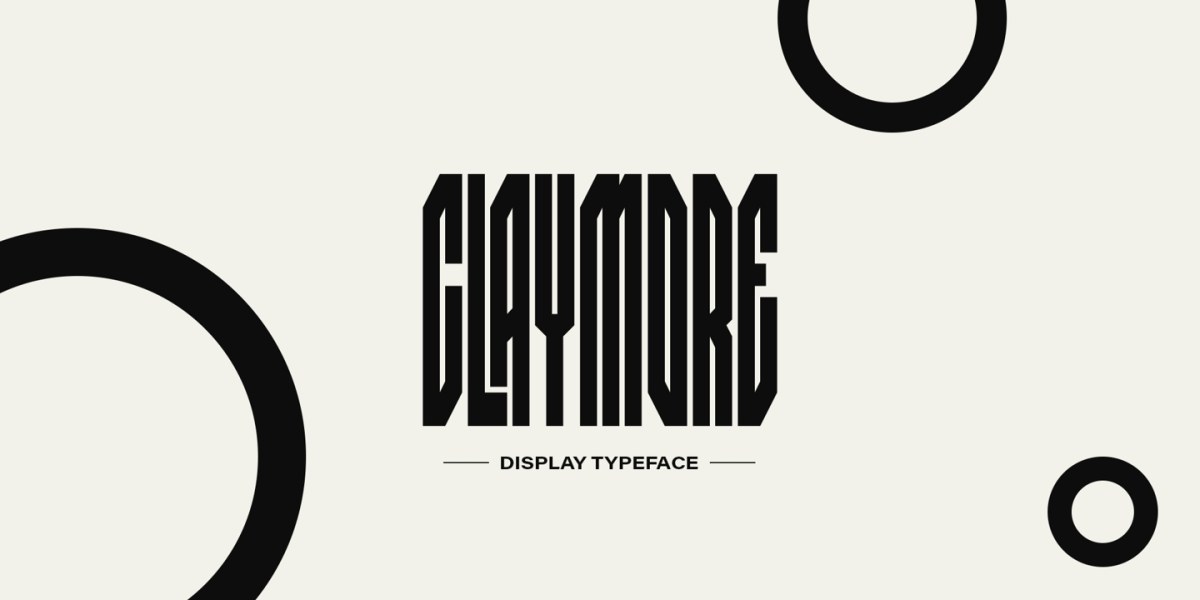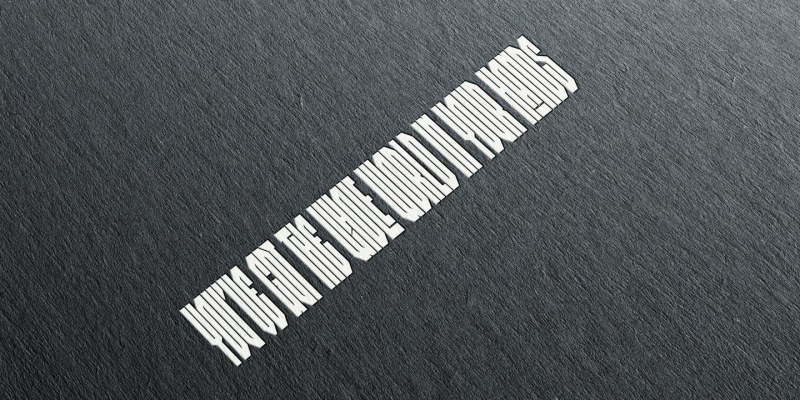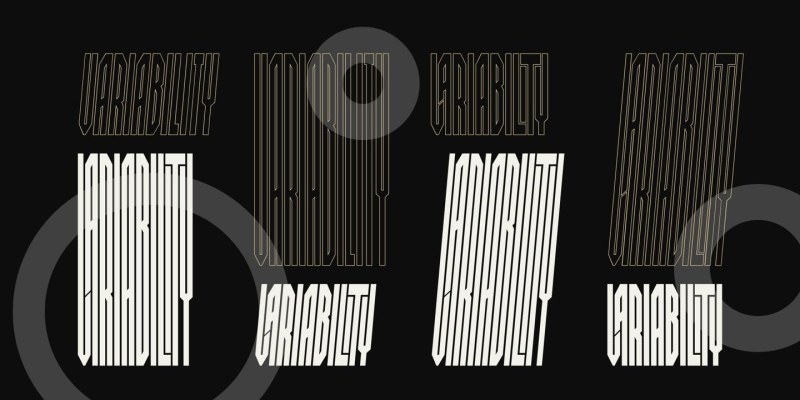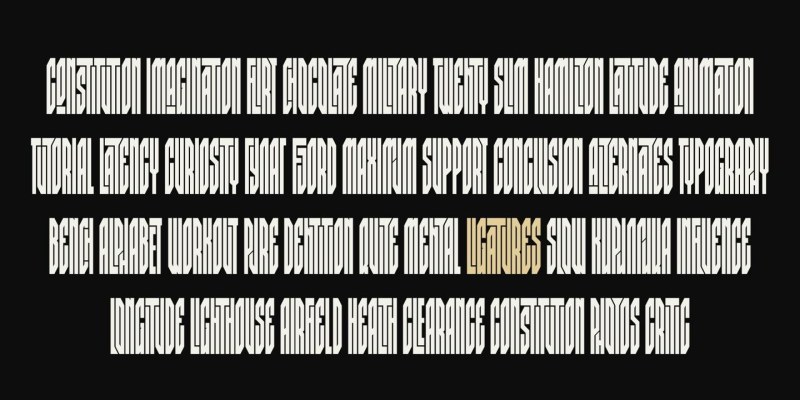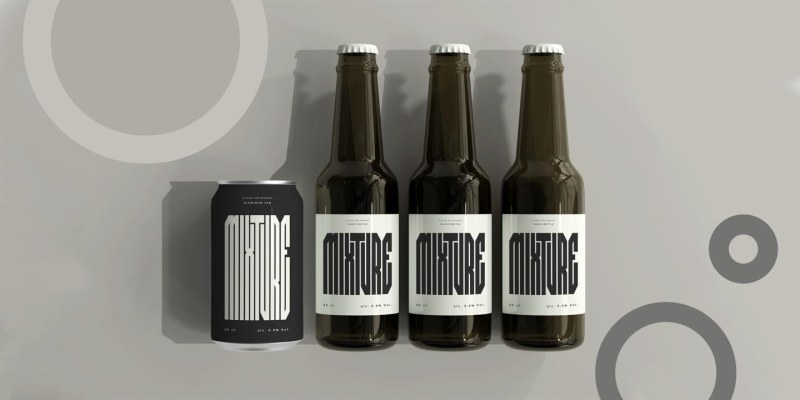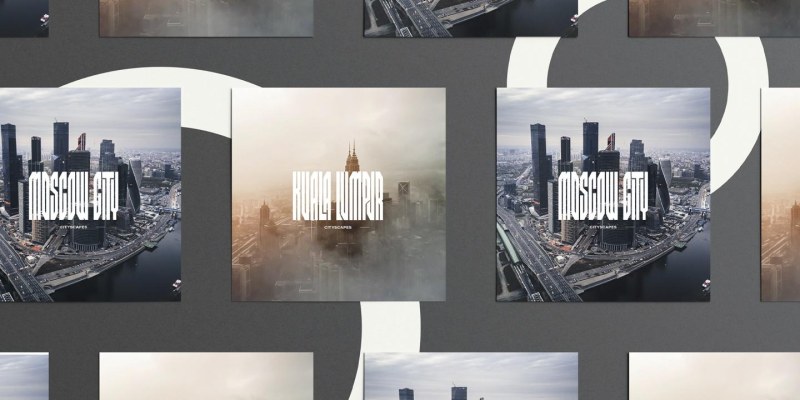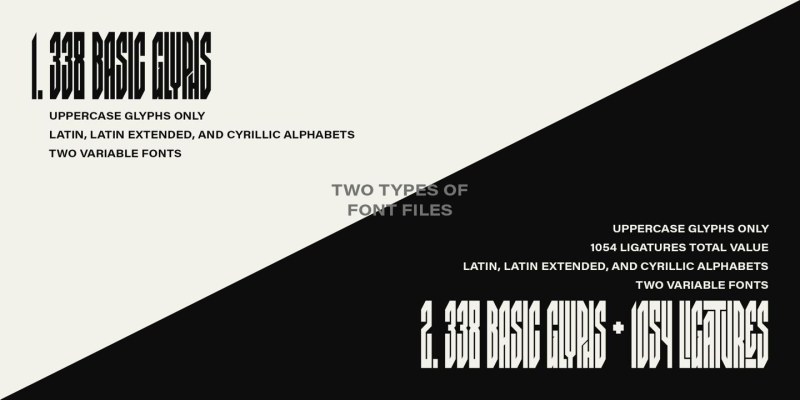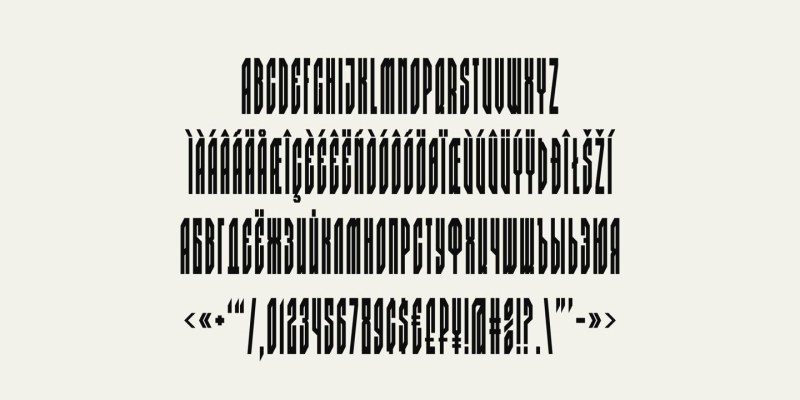
BK Claymore Font Family
Claymore is an ultra-condensed variable display typeface mainly created for expressive and decorative purposes. Enriched with a wide list of alternates and ligatures which cover a huge range of letter combinations, Claymore can become a powerful weapon to those, who want to make their typographic accents in design bright and unique
BK Claymore Font Family is a Display Fonts font that brings a professional and versatile look to your projects. Claymore is an ultra-condensed variable display typeface mainly created for expressive and decorative purposes.